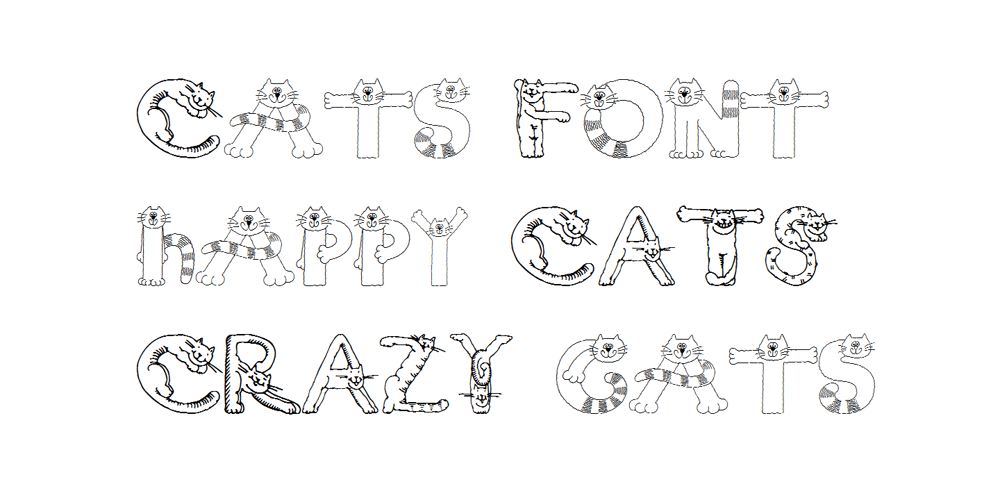
Cats
Cats font
Cats Font Family was designed by Jose Jimenez and published by Celebrity Fontz. Cats contains 1 styles and family package options. Cats is a whimsical font made up of two different sets of cat alphabets in upper and lower cases. Happy cats are pictured in a variety of poses forming the letters they represent. If you love cats, you will not want to miss having the Cats font in your collection. Includes full set of accented characters.